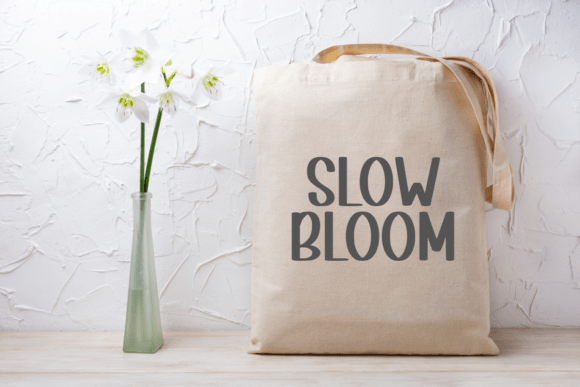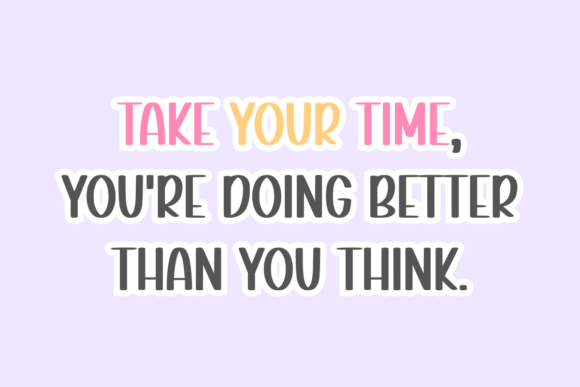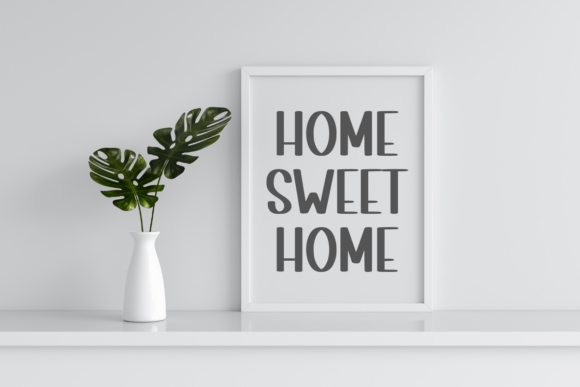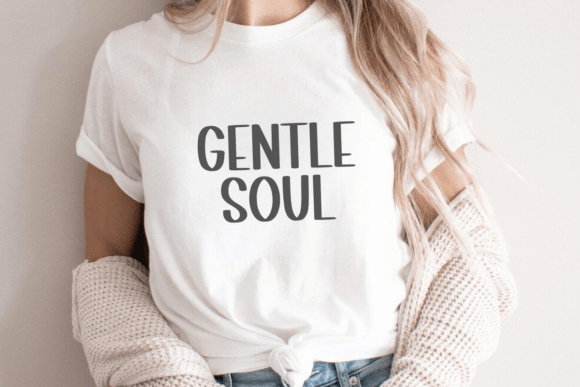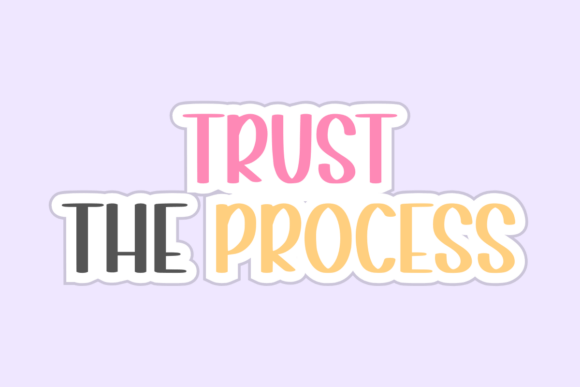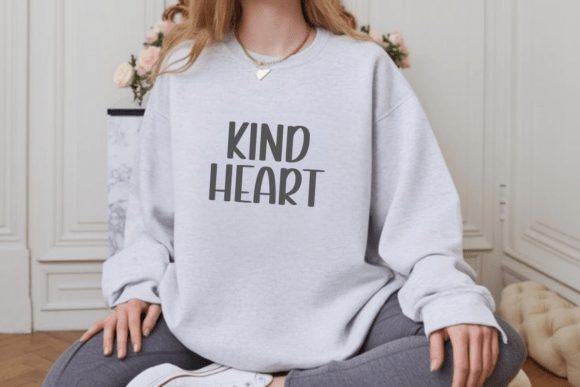
Introducing Beloved Sunshine Font: The Perfect Companion for Crafty Projects
Are you a crafting mom, a DIY enthusiast, or a designer looking for a font that can add a touch of warmth and personality to your projects? Look no further than Beloved Sunshine Font, a delightful sans serif handwriting font that is sure to become your new favorite companion. In this article, we’ll dive into the features and benefits of Beloved Sunshine Font, and explore how it can elevate your craft projects, planners, stickers, kids’ worksheets, classroom printables, and DIY designs.
A Soft, Friendly, and Natural Look
Beloved Sunshine Font is designed with a soft, friendly, and natural look that is perfect for crafty projects. Its simple strokes and smooth curves make it easy to read and visually appealing. The font’s handcrafted feel brings a warm and cozy touch to any project, making it ideal for crafting moms who love adorable handwritten styles.
Perfect for Various Craft Projects
Beloved Sunshine Font is a versatile font that can be used for a wide range of craft projects, including:
- Quotes: Add a personal touch to your inspirational quotes, making them perfect for social media posts, printables, or wall art.
- Greeting Cards: Create beautiful and heartfelt greeting cards for special occasions, such as birthdays, holidays, or thank-you notes.
- Kids’ Labels: Make labeling fun and engaging for kids with this adorable font, perfect for stickers, tags, or charts.
- Coloring Pages: Add a touch of sweetness to your coloring pages, making them perfect for kids and adults alike.
- Worksheets: Create engaging and interactive worksheets for kids, perfect for classroom printables or homeschooling.
- Bullet Journals: Add a personal touch to your bullet journals, making them a beautiful reflection of your creativity and style.
- Scrapbooks: Use Beloved Sunshine Font to add captions, quotes, or journaling to your scrapbook pages, making them extra special.
- Playful Graphic Projects: Create fun and playful graphic projects, such as posters, flyers, or brochures, that showcase your creativity and style.
Cricut and Silhouette Friendly
One of the best features of Beloved Sunshine Font is its compatibility with cutting machines like Cricut and Silhouette. The font’s simple strokes and smooth curves make it easy to cut, allowing you to create intricate designs and shapes with ease. This makes it perfect for crafting moms who love to create custom vinyl decals, iron-on designs, or paper crafts.
Why Choose Beloved Sunshine Font?
So, why choose Beloved Sunshine Font for your craft projects? Here are just a few reasons:
- Unique and Adorable: Beloved Sunshine Font is a one-of-a-kind font that adds a touch of personality to any project.
- Easy to Read: The font’s simple strokes and smooth curves make it easy to read, even at small sizes.
- Versatile: Beloved Sunshine Font can be used for a wide range of craft projects, from quotes and greeting cards to kids’ labels and coloring pages.
- Cricut and Silhouette Friendly: The font’s compatibility with cutting machines makes it perfect for crafting moms who love to create custom designs.